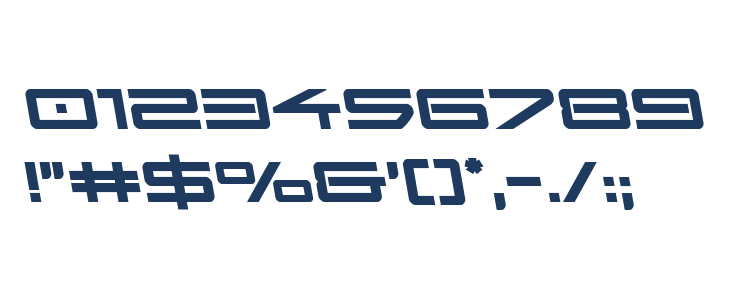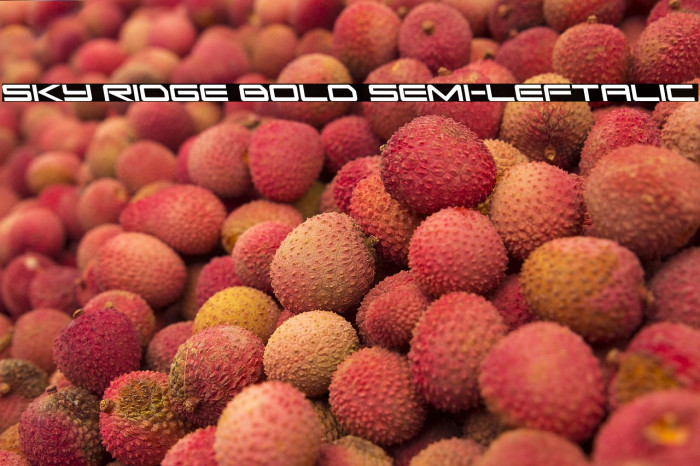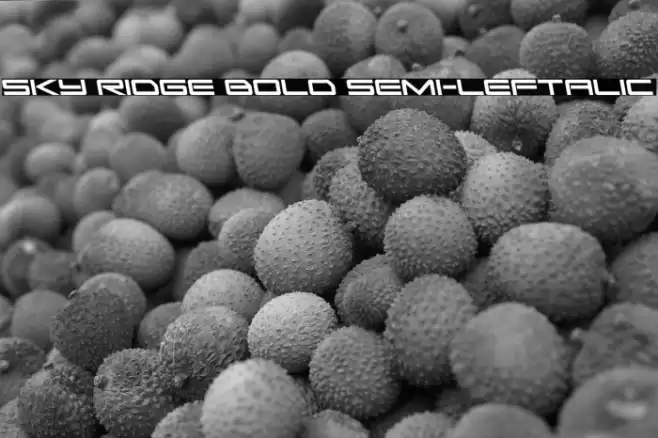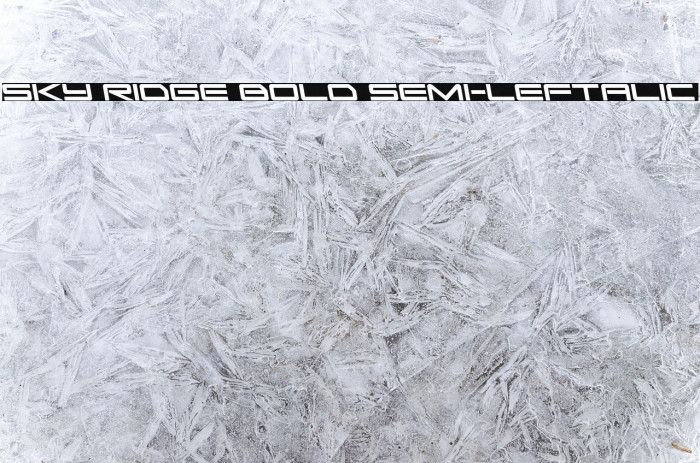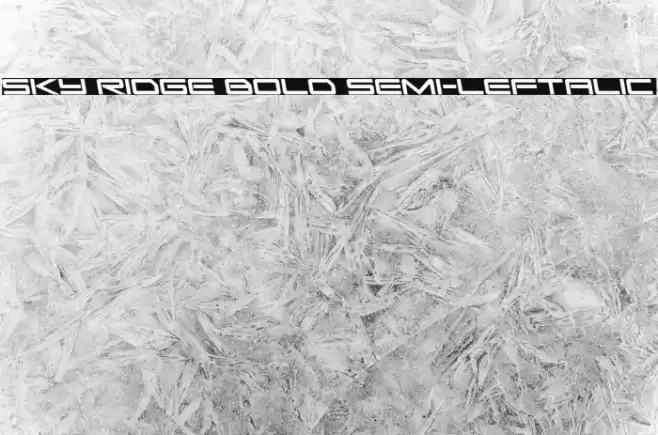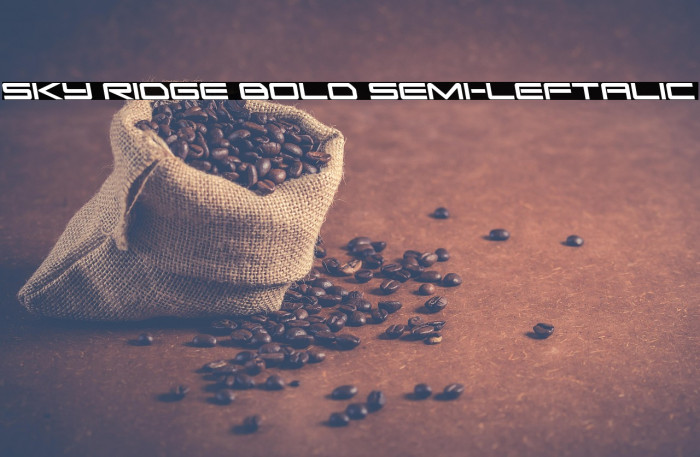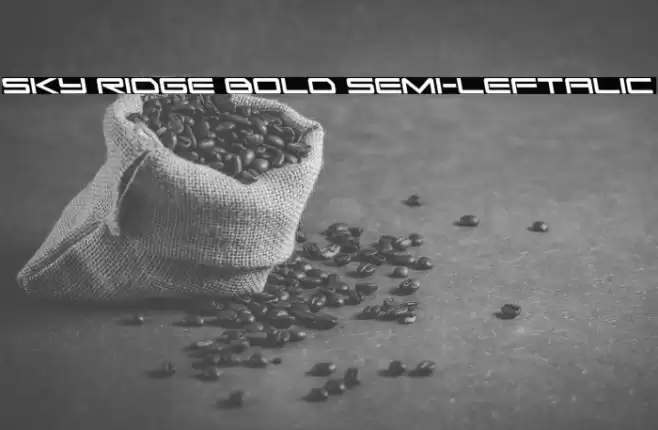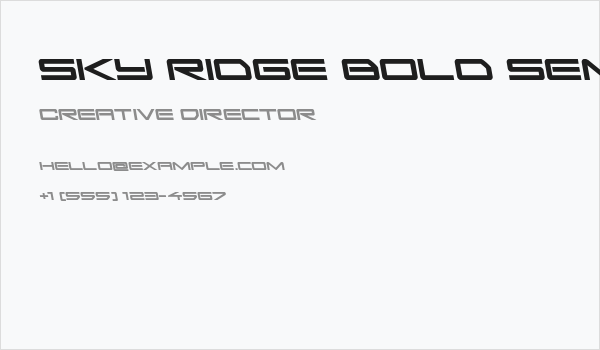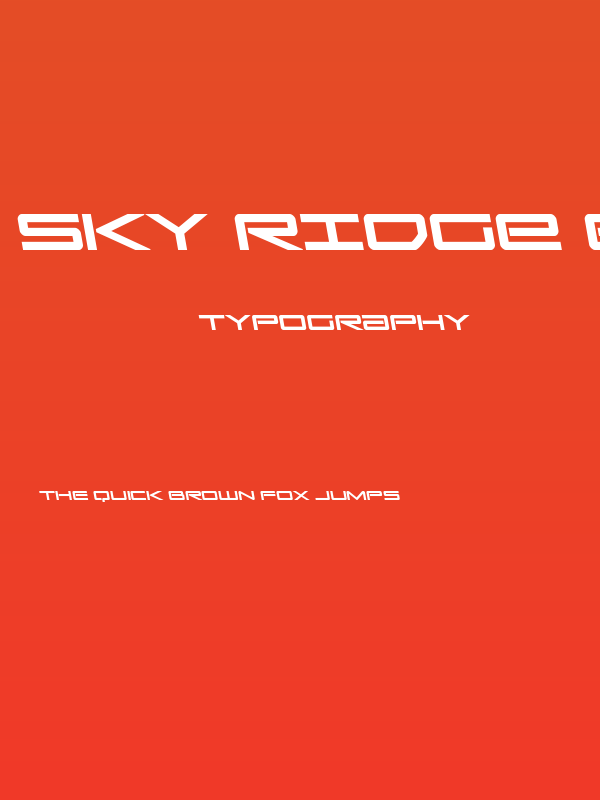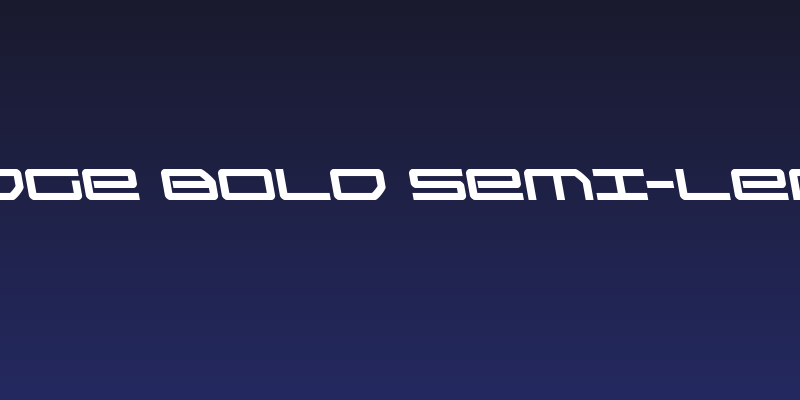
Sky Ridge Bold Semi-Leftalic Font
Sky Ridge Bold Semi-Leftalic Description
This font features a bold and semi-italicized style with a futuristic and angular design. The characters are constructed with clean, straight lines and sharp edges, giving it a modern and tech-inspired appearance. The uppercase and lowercase letters maintain a consistent geometric form, while the numerals and special characters complement the overall aesthetic. The font's unique slant adds a dynamic feel, making it stand out in various design applications. Its distinct style is suitable for projects that require a contemporary and edgy look.
| Proposed Projects | Ideal for technology branding, sci-fi themed projects, video game titles, and modern advertising. |